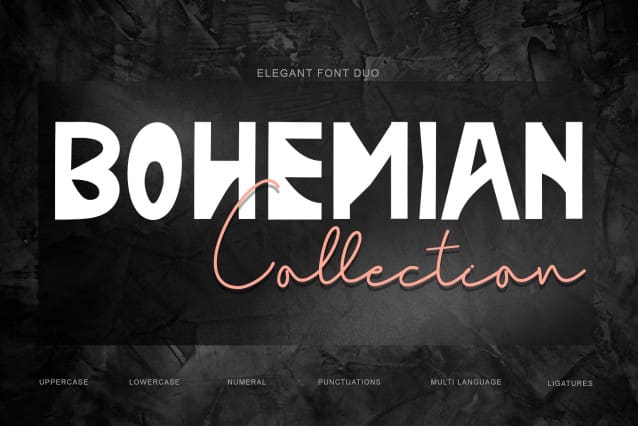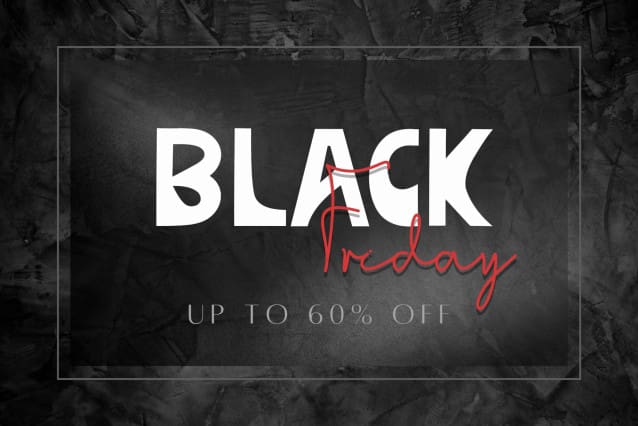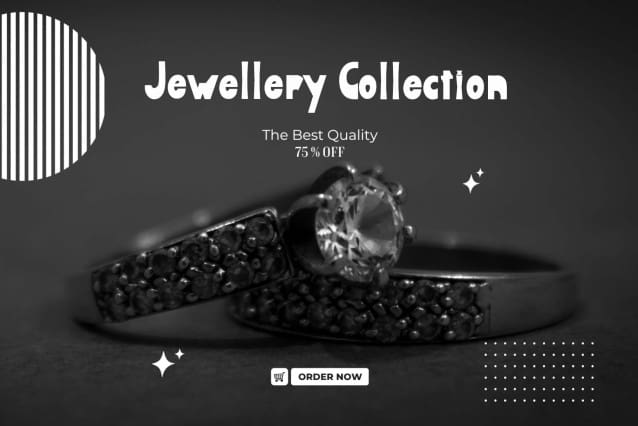
Bohemian Collection Font
Bohemian Collection Font is two fonts combined into one font duo. This font is equipped with uppercase, lowercase, numerals, punctuation, multilingual support, and ligatures. Very suitable for banners, branding, business branding, stickers, logos, weddings, invitations, and others.